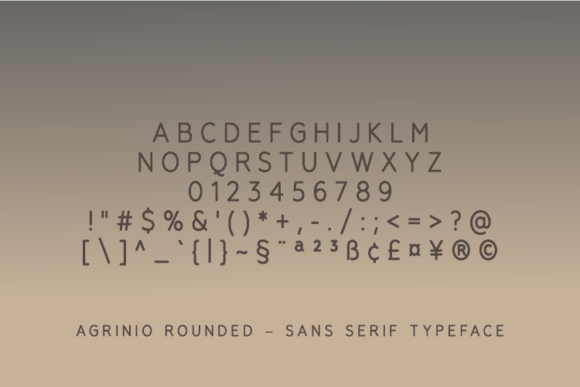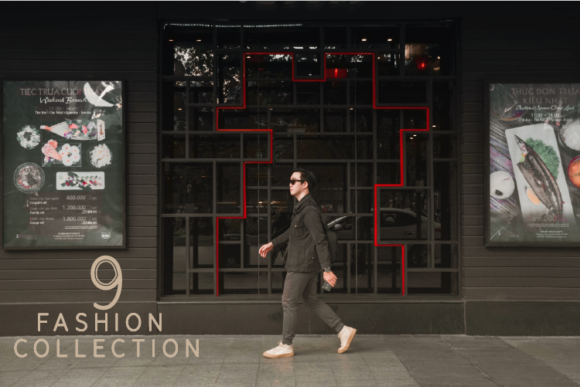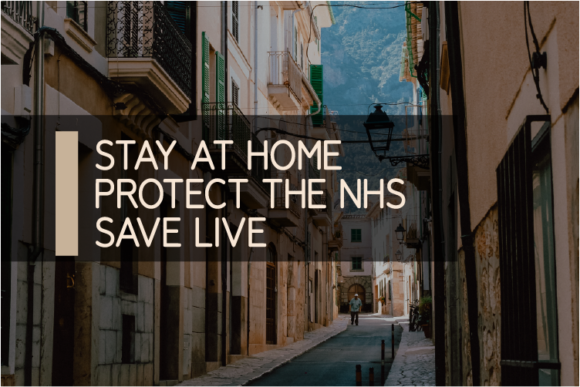
Agrinio Font: Elevate Your Design with Elegance and Sophistication
In the world of typography, a well-crafted font can make all the difference in elevating a design from ordinary to extraordinary. Introducing Agrinio, a distinct and elegant sans serif font that seamlessly blends traditional influences into a contemporary aesthetic. This masterfully designed font is a true must-have for designers and crafters looking to add a touch of sophistication to their work.
The Agrinio Advantage: A Perfect Blend of Tradition and Modernity
Agrinio’s unique design is characterized by its clean lines, subtle curves, and a dash of classic flair. This sans serif font boasts a distinctive elegance that sets it apart from more generic fonts, making it perfect for a wide range of applications, from logos and branding to packaging design and more. Whether you’re working on a high-end fashion brand, a luxury product, or a sophisticated digital platform, Agrinio is the perfect choice to convey refinement and style.
Key Features of Agrinio Font
- Distinctive Elegance: Agrinio’s elegant design makes it stand out in any design project, adding a touch of sophistication and luxury.
- Versatility: This font is incredibly versatile, suitable for a wide range of applications, including logos, branding, packaging, and digital platforms.
- Readability: Agrinio’s clear and clean design ensures excellent readability, making it perfect for both digital and print media.
- Scalability: This font scales beautifully, retaining its elegance and sophistication at any size.
Why Choose Agrinio for Your Design Projects?
With Agrinio, you gain access to a font that is not only aesthetically pleasing but also highly functional. Its unique blend of traditional and modern elements makes it an excellent choice for designers looking to create distinctive and memorable designs. Here are a few reasons why Agrinio stands out:
- Unique Identity: Agrinio helps you create a unique identity for your brand, setting you apart from the competition.
- Professionalism: The font’s elegant design conveys professionalism and sophistication, essential for luxury brands and high-end products.
- Flexibility: Agrinio can be used across various mediums, from digital platforms to print materials, ensuring consistency in your brand’s visual identity.
Using Agrinio in Your Design Projects
Integrating Agrinio into your design workflow is straightforward. Here are some tips on how to make the most of this elegant font:
- Logo Design: Use Agrinio to create stunning logos that exude elegance and sophistication.
- Branding: Ensure consistency in your brand’s visual identity by using Agrinio across all your branding materials.
- Packaging Design: Elevate your packaging design with Agrinio, adding a touch of luxury to your products.
- Digital Platforms: Use Agrinio in your digital designs, such as websites and mobile apps, to convey professionalism and style.
Agrinio is more than just a font; it’s a design statement. With its elegant sans serif design and blend of traditional and modern influences, Agrinio is the perfect choice for designers and crafters looking to elevate their work. Whether you’re working on a luxury brand, a high-end product, or a sophisticated digital platform, Agrinio is a must-have font that will help you create distinctive and memorable designs. Add Agrinio to your design arsenal today and experience the difference it can make.